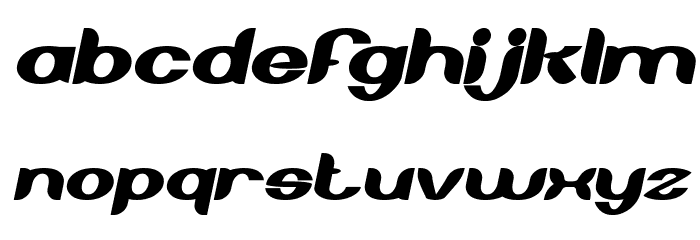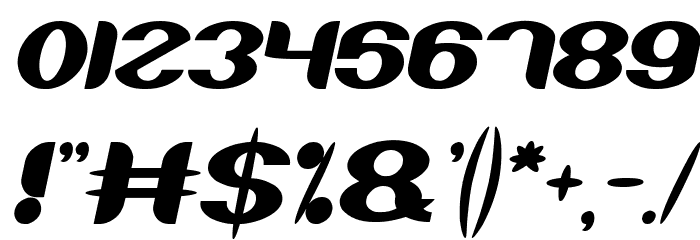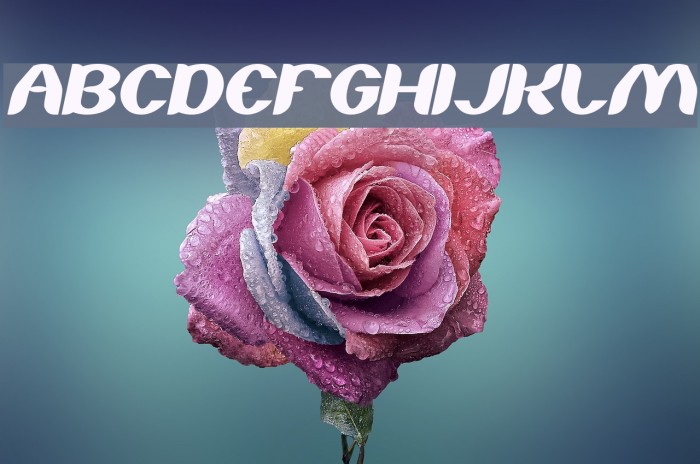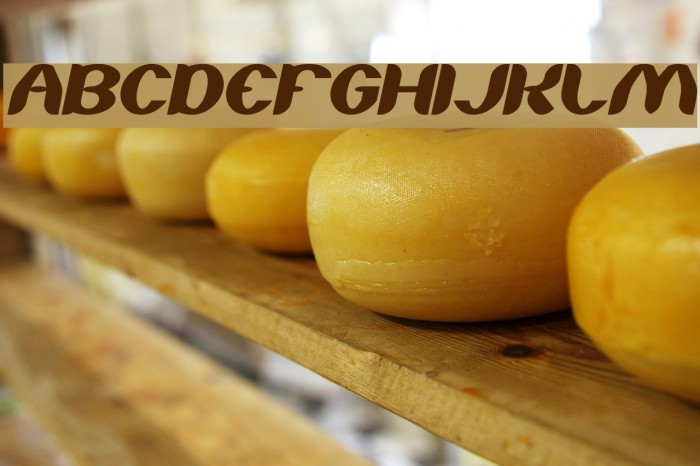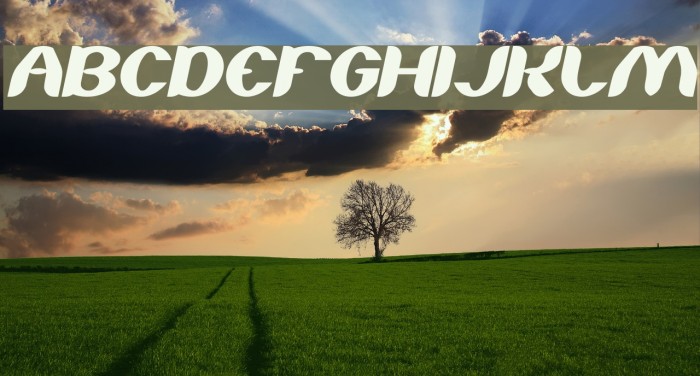
About you Italic Font
This font features a bold and dynamic italic style with a strong presence. The characters are rounded and slightly slanted, giving a sense of movement and energy. The strokes are thick and consistent, providing a robust appearance. The uppercase letters are bold and commanding, while the lowercase letters maintain a playful yet cohesive look. The numerals are equally bold, ensuring visibility and impact. Special characters are designed to match the overall style, making them suitable for various creative applications.
A bold, italic font with rounded, dynamic characters.
- Proposed Projects: Ideal for branding, advertising, posters, and headlines where a strong, energetic presence is desired.